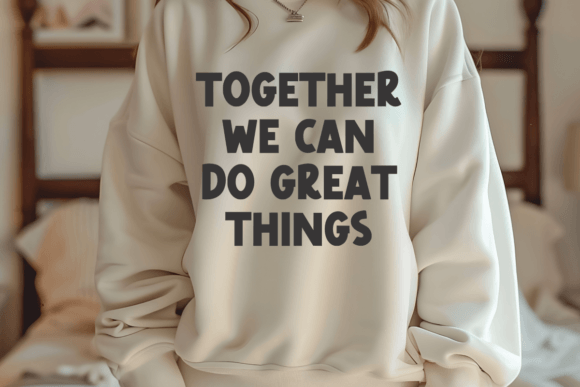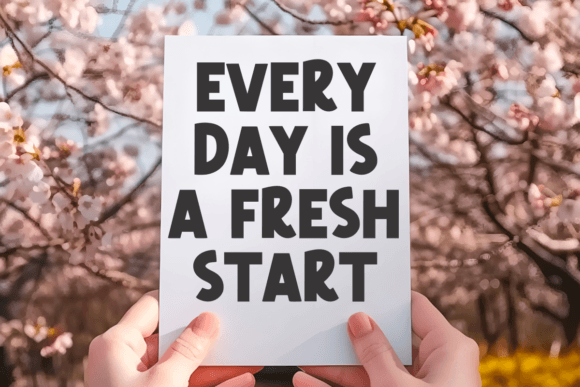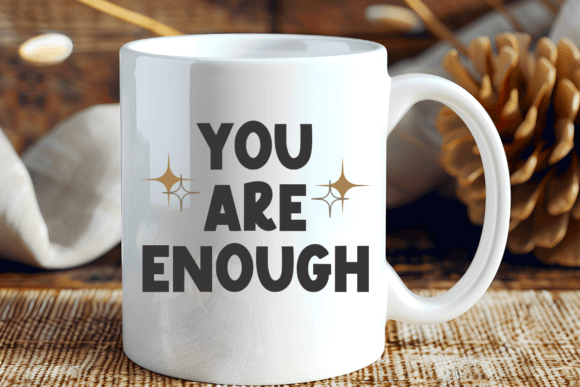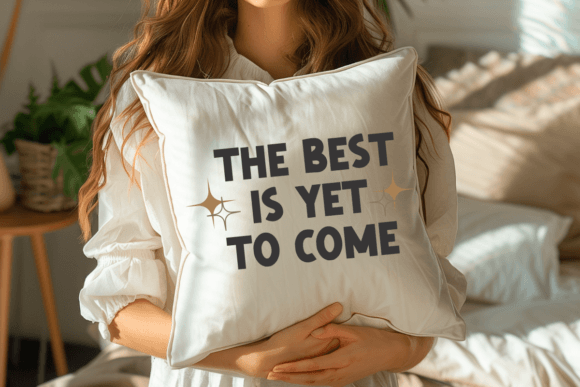
Introducing Cozy Light Font: The Sweet and Friendly Display Font for Your Creative Projects
Are you a designer or crafter looking for a font that can add a touch of warmth and personality to your creative projects? Look no further than Cozy Light Font! This sweet and friendly display font is perfect for a wide range of designs, from rustic and vintage-inspired projects to modern and playful ones. In this article, we’ll explore the features and benefits of Cozy Light Font, and show you how it can elevate your designs to the next level.
The Unique Style of Cozy Light Font
Cozy Light Font boasts a natural and unique style that sets it apart from other display fonts. Its letters are carefully crafted to exude a sense of warmth and friendliness, making it perfect for designs that require a personal touch. The font’s subtle imperfections and quirks give it a handmade feel that’s sure to resonate with crafty and DIY enthusiasts.
One of the standout features of Cozy Light Font is its versatility. Its clean and simple design makes it easy to read, while its distinctive character ensures that it stands out from the crowd. Whether you’re designing a logo, a poster, or a social media graphic, Cozy Light Font is sure to make a lasting impression.
Endless Possibilities with Cozy Light Font
The only limit to what you can create with Cozy Light Font is your imagination! This font can be used for a wide range of projects, including:
- Branding and logos: Create a unique and memorable logo for your business or product with Cozy Light Font.
- Posters and flyers: Add a touch of warmth and personality to your promotional materials with this charming font.
- Social media graphics: Stand out on social media with eye-catching graphics featuring Cozy Light Font.
- Packaging design: Add a personal touch to your product packaging with this sweet and friendly font.
- Crafting and DIY projects: Use Cozy Light Font to add a touch of handmade charm to your crafting and DIY projects.
Why Choose Cozy Light Font?
So why choose Cozy Light Font for your creative projects? Here are just a few reasons:
- Unique and distinctive: Cozy Light Font is a one-of-a-kind font that will set your designs apart from the crowd.
- Easy to read: Despite its decorative nature, Cozy Light Font is surprisingly easy to read, making it perfect for designs that require a clear message.
- Versatile: This font can be used for a wide range of projects, from rustic and vintage-inspired designs to modern and playful ones.
- Handmade feel: Cozy Light Font has a subtle imperfections and quirks that give it a handmade feel that’s perfect for crafty and DIY enthusiasts.
Get Creative with Cozy Light Font
Ready to get creative with Cozy Light Font? Here are a few tips to help you get started:
- Experiment with different colors: Cozy Light Font looks great in a range of colors, from soft pastels to bold brights.
- Play with textures: Add a tactile element to your designs with textures and patterns that complement Cozy Light Font.
- Mix and match: Combine Cozy Light Font with other fonts and graphics to create a unique and eye-catching design.